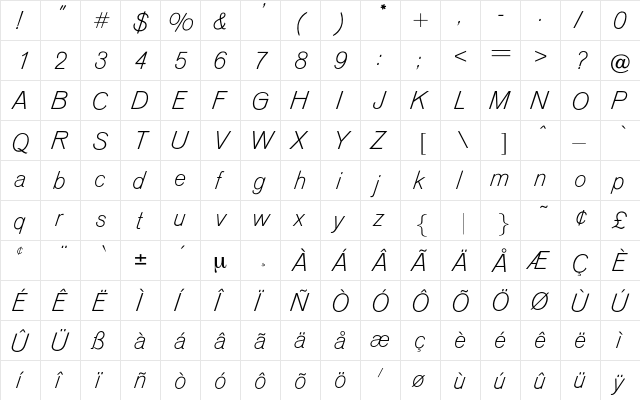
Aurora Regular
Design Context for Aurora Typeface
Aurora is a composed and adaptable typeface that performs quietly and consistently across a wide range of design contexts.
Pro Tip: Pair Aurora with a font of contrasting weight or personality to build a more expressive typographic hierarchy.